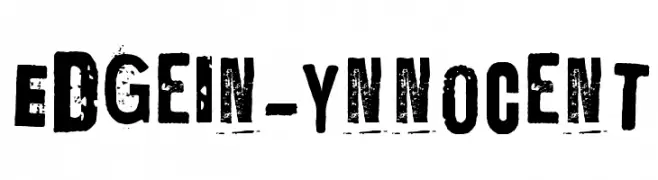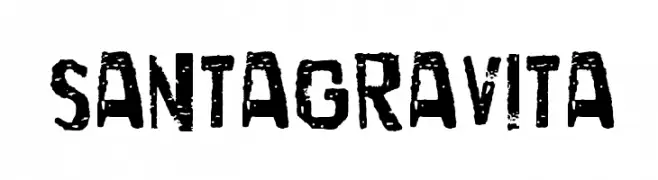
A bold, hand-drawn font with a vintage, distressed style.
A bold, distressed font with a grunge texture and rugged appearance.
A bold, distressed font with a grunge aesthetic and textured appearance.
A bold, distressed font with a grunge aesthetic and high contrast.
A bold, distressed font with a rugged, vintage feel.
A bold, distressed font with a cut-out, ransom note style.
A bold, distressed font with a grunge aesthetic and rough edges.